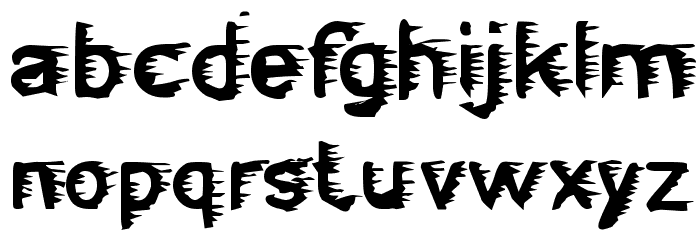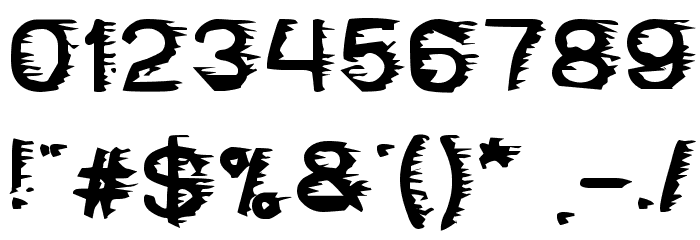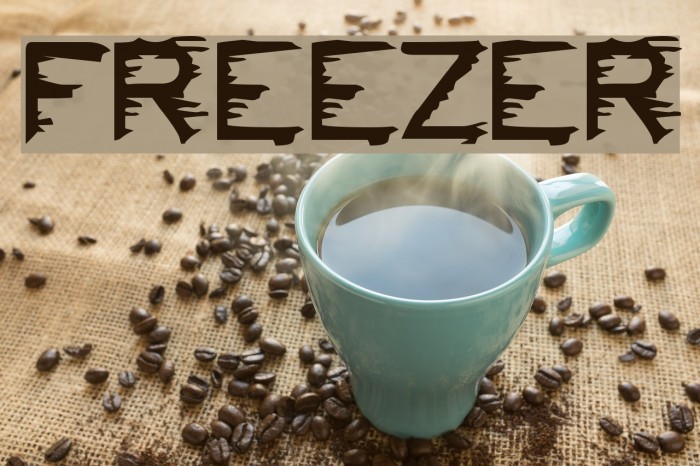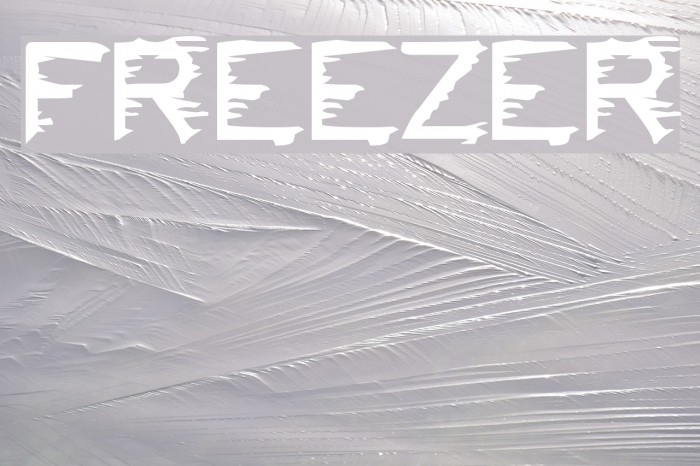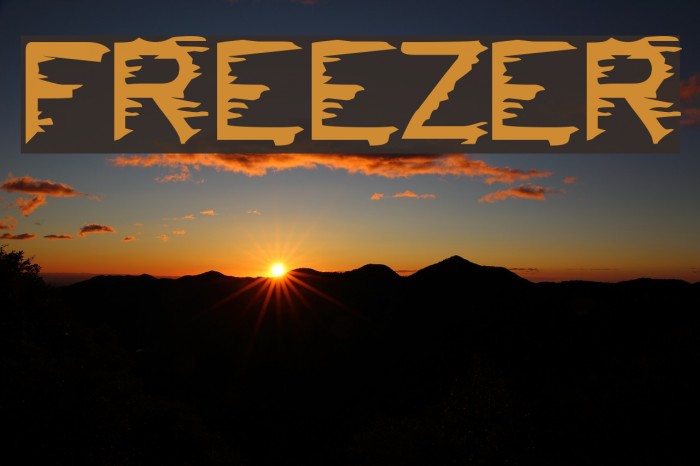
FREEZER Font
This font features a bold and jagged design, reminiscent of ice shards or a frozen landscape. The characters have a rough, distressed appearance with sharp edges and irregular cuts, giving it a dynamic and edgy feel. Each letter is uniquely styled with varying thicknesses and angles, creating a sense of movement and energy. The font maintains a consistent height across uppercase, lowercase, and numeral characters, ensuring readability despite its decorative nature. Special characters are equally stylized, integrating seamlessly with the overall theme.
A bold, jagged font with an icy, distressed appearance.
- Proposed Projects: Ideal for horror-themed posters, winter sports branding, or any project requiring a chilling, dramatic effect.